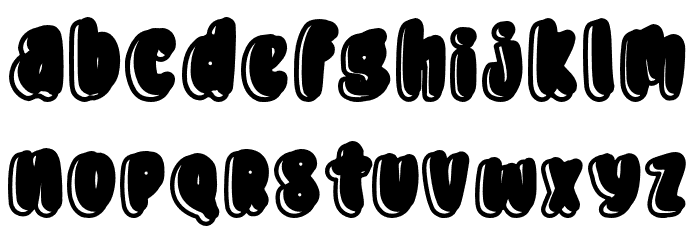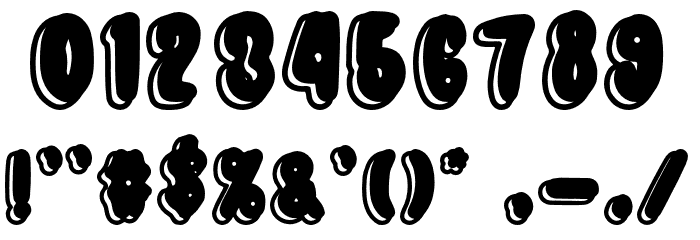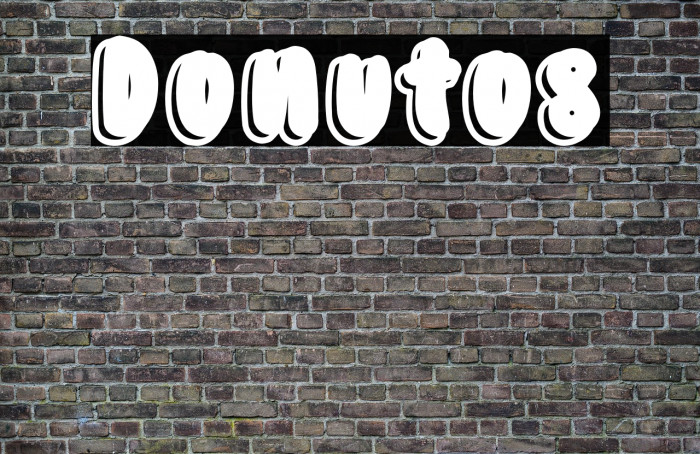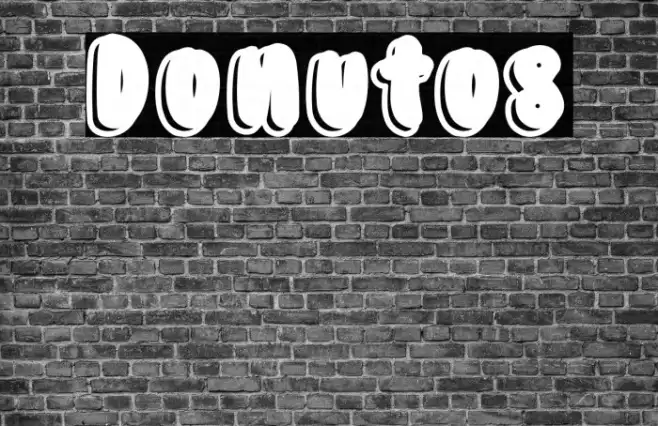
Donutos Font
This playful and bold font features a unique, rounded style that resembles the shape of donuts. Each character is filled with a solid color and outlined with a contrasting shadow, giving it a three-dimensional appearance. The letters are thick and bubbly, with a whimsical and fun aesthetic that captures attention. The font maintains consistent thickness throughout, with no significant variation in stroke width, contributing to its cohesive look. Its distinctive style makes it ideal for projects that require a touch of humor and creativity.
A playful, bold font with a donut-like, three-dimensional appearance.
- Proposed Projects: Ideal for children's book covers, playful branding, food-related packaging, and eye-catching posters.
- Overall Style: Playful, Whimsical